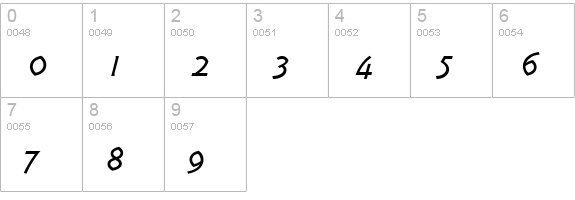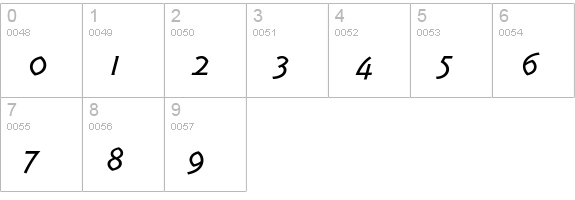
TriplexItalicLightOldstyle Italic Font Details
TriplexItalicLightOldstyle Italic is a distinctive, italic variant in the TriplexItalicLightOldstyle typeface family \xE2\x80\x94 well suited to design and typography projects.
TriplexItalicLightOldstyle Italic font is a beautifully crafted typeface that exudes elegance and sophistication. Its delicate curves and graceful strokes make it a perfect choice for projects that require a touch of refinement. With its timeless design and classic appeal, TriplexItalicLightOldstyle Italic font adds a sense of charm and sophistication to any design. Whether you are creating wedding invitations, branding materials, or editorial layouts, this font will effortlessly elevate your work to new heights. The light and airy nature of TriplexItalicLightOldstyle Italic font lends itself well to projects that require a soft and delicate touch. Its slender letterforms gracefully dance across the page, creating a sense of movement and fluidity. What sets TriplexItalicLightOldstyle Italic font apart is its versatility. It can effortlessly adapt to various design styles, whether it be modern, vintage, or even minimalist. Its italicized form adds a subtle touch of emphasis, making it ideal for highlighting important elements or creating a sense of hierarchy within your designs. And the best part? TriplexItalicLightOldstyle Italic font is available for free download at FontsMarket.com. You can easily get your hands on this exquisite font and start using it in your projects right away. So why wait? Elevate your designs with the timeless beauty of TriplexItalicLightOldstyle Italic font today.